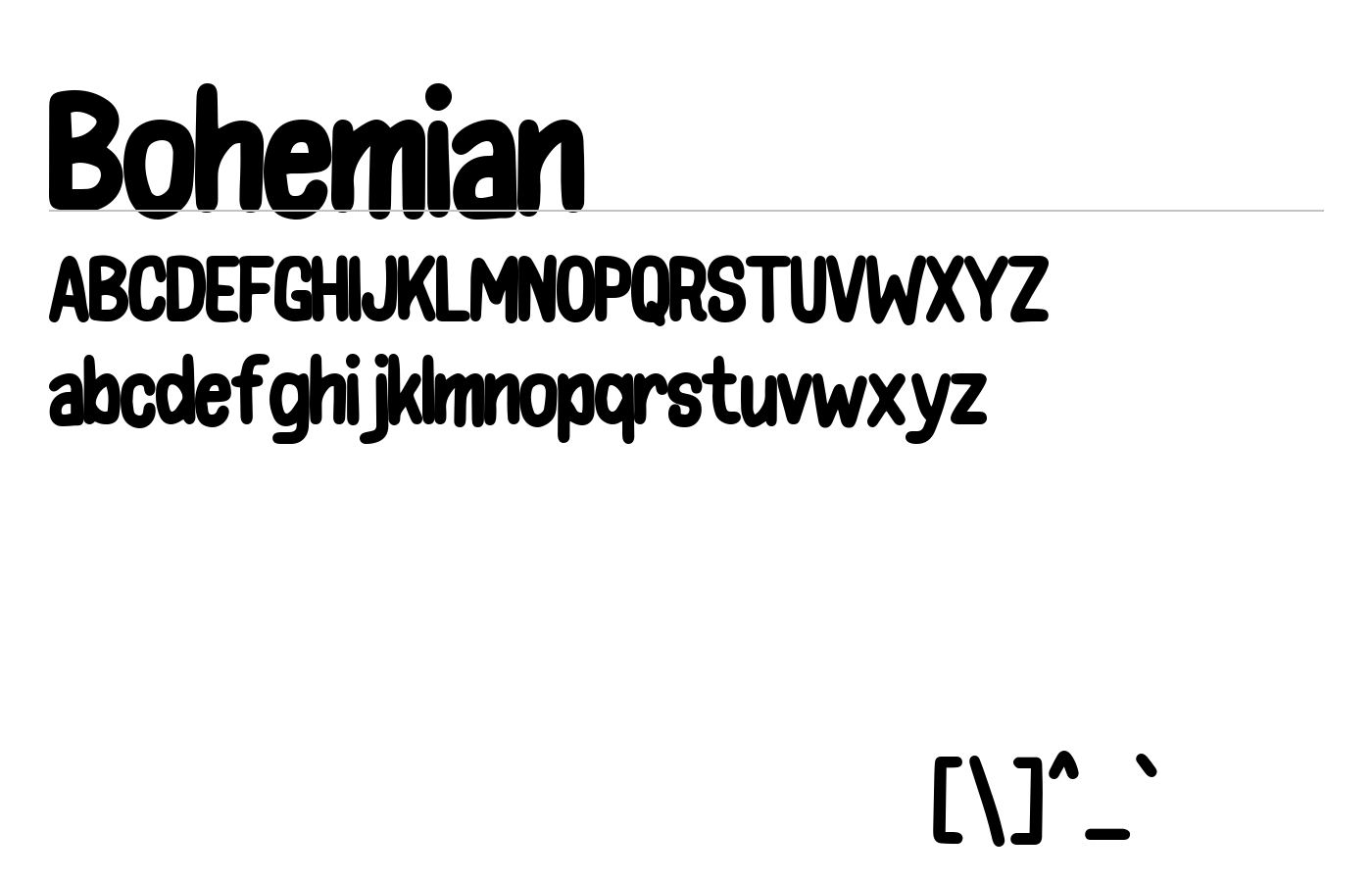
Bohemian is a playful and bold sans serif font with a hand-drawn, casual feel that makes it perfect for friendly and informal designs. Its rounded, slightly irregular letterforms give it a welcoming personality, making it ideal for creative branding, children’s materials, or fun headlines that need a lively and approachable touch. This font works well where a conversational and energetic vibe is desired, adding a unique charm without sacrificing readability.
Bohemian Font
About Bohemian Font
| Font family | Bohemian Font |
| Designer | Lady Hanna |